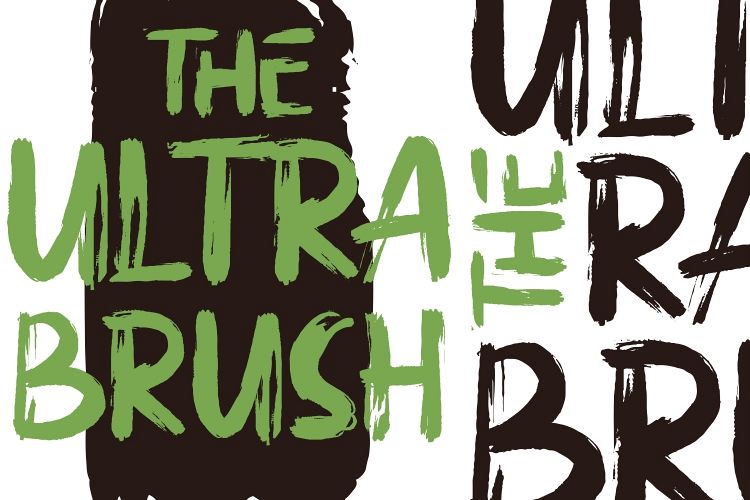
The Ultra Brush
THE ULTRA BRUSH was born from the interest of the maker of display fonts that are currently present. By using a natural dry brush, Ultra Brush was born to meet the needs of designers to make posters, t-shirts, quotes, branding, packaging, logos, advertise, and etc.
EXTRAS 50 is more a swash style with dry brush!
• More +50 swash styles
• Ligature SupportWe hopes you can experiment and explore with Ultra Brush.